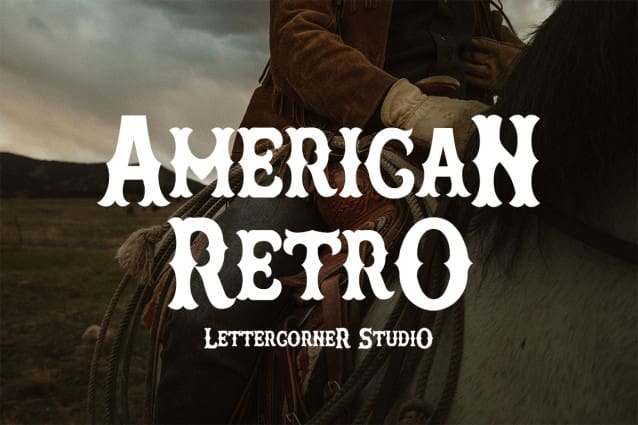
Americana Retro Font
Americana Retro Font, a Southern-inspired serif display font for all your aged and authentic, hand-crafted, made in America styled projects.